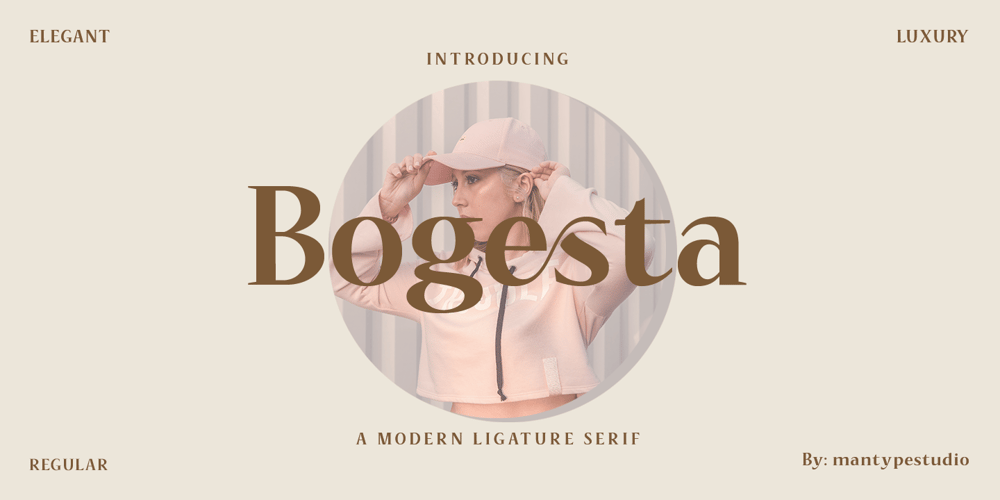
Bogesta
Bogesta font
Bogesta Font Family was designed by Sulai Man and published by Mantype Studio. Bogesta contains 1 styles and family package options. Bogesta Typeface – Stylish OpenType rich serifs with letters that seem to dance and swirl harmoniously together – to form unique & elegant typographic designs.The wide selection of interwoven binders and Opentype alternatives means lots of choice and variety in your final look.To access these OpenType features, you need Opentype-enabled software such as: Word, Textedit, Photoshop, Sketch, Pages, Keynote, Numbers, iBooks Author, QuarkXPress, Indesign and Illustrator.A wide variety of useful glyphs are included – see preview images of all glyphs.